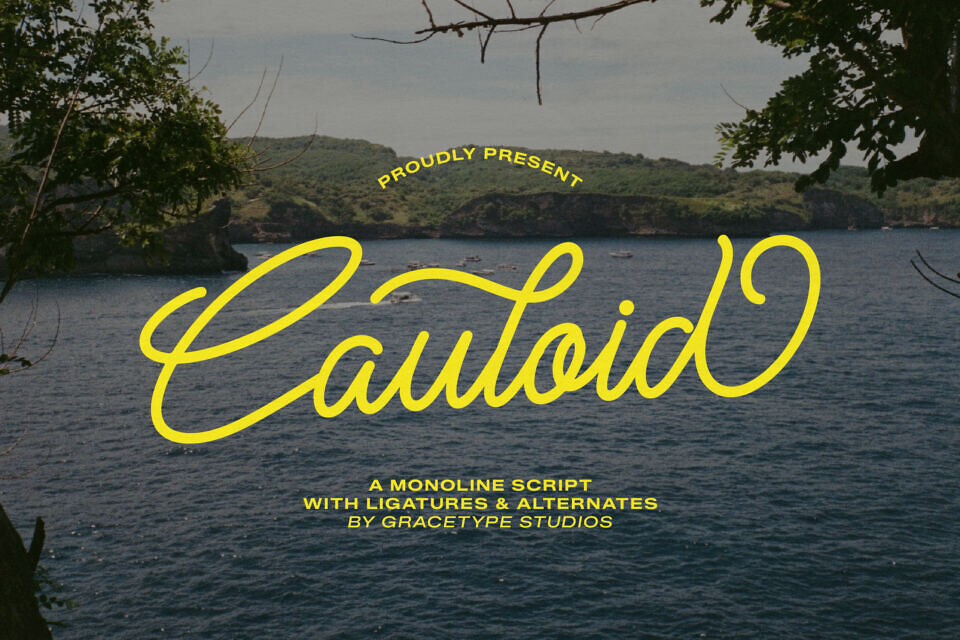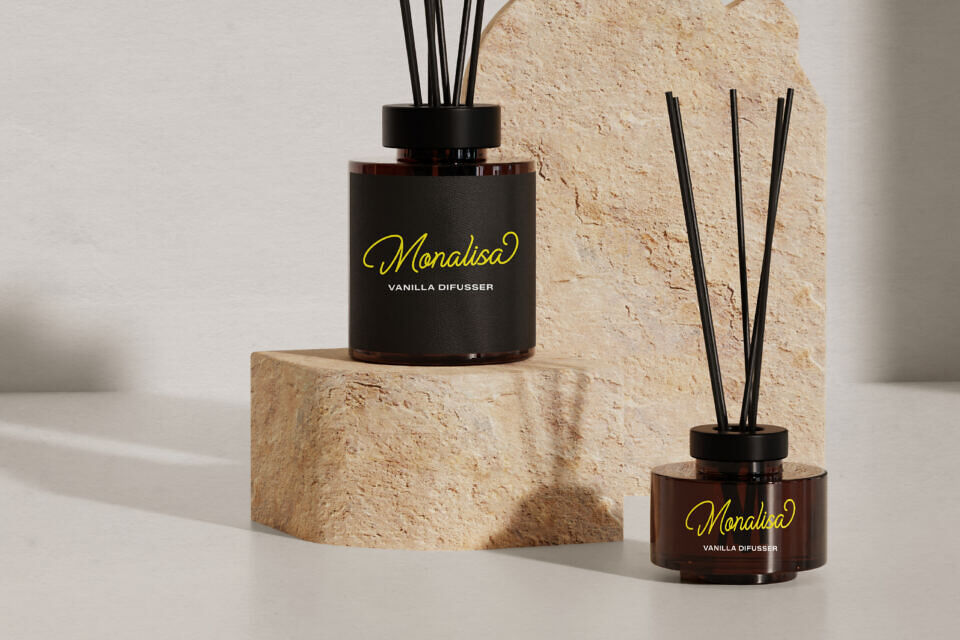
Cauloid Font
Cauloid is a fluid script font that embodies effortless sophistication. Its consistent stroke thickness gives it a modern feel, while its sweeping loops and elegant ligatures convey friendliness and high-end style.
Perfect for luxury brands, it pairs well with minimalist fonts and adds a touch of warmth to designs, making it ideal for applications like social media quotes, logos, and editorial layouts. Its versatility allows for effective visual storytelling in various contexts, from wedding invitations to travel blogs.